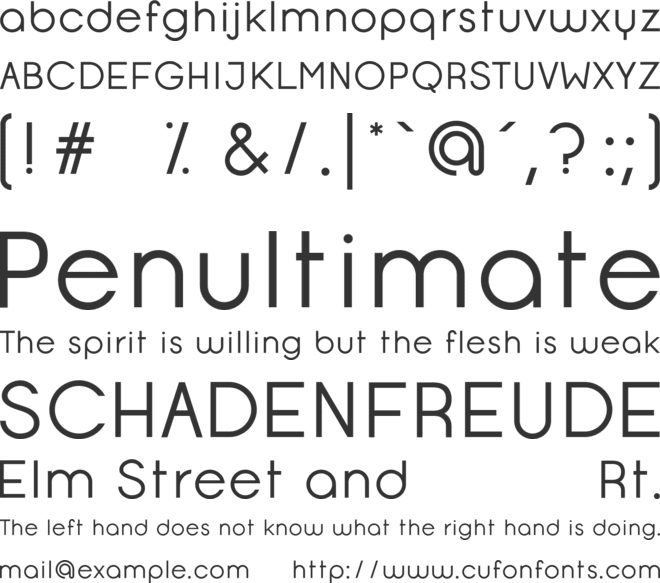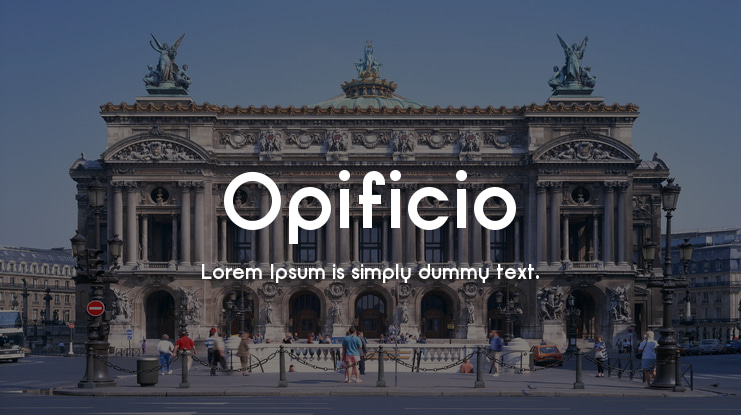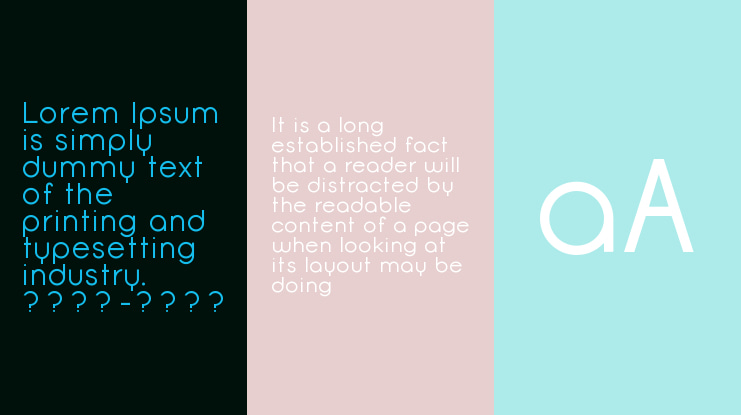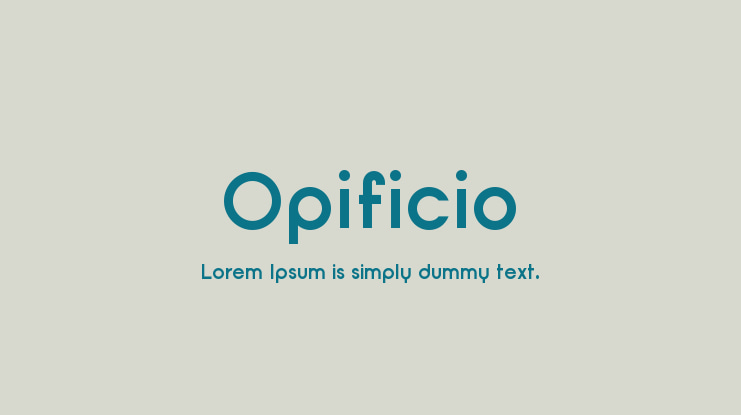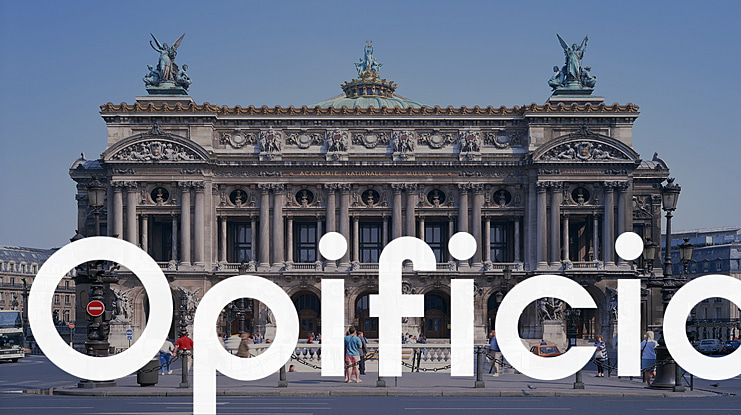
Opificio Font Family
Andrea Cerboneschi for Monocromo
Note of the author Opificio is a Geometric Sans Serif Font designed for Opificio JM (an artisanal workshop located in Prato) in collaboration with John Malkovich. The typeface come after the creation of the logo which is inspired both by the geometric architecture of the shop and the stylish minimalism of the exposed products and furniture. These are the guidelines for the design of Opificio, which is suitable both as Display and Text font, with a personal but not invasive character. Opificio is the most popular font designed by Monofonts, it counts several web mentions and it was selected by Behance for the Graphic Design section. Opificio Rounded is basically designed as Opificio Regular but differs for strokes endings, which are rounded instead squared. The final effect is a more playful and informal font than its traditional brother.
Opificio Family: Opificio Regular Opificio Bold Opificio Light Opificio Rounded Regular Opificio Rounded Bold Opificio Rounded Light